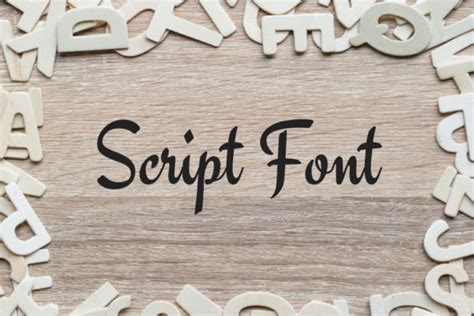
Define Script Font. Variation in stroke weight to. Web script typefaces are based on the varied and often fluid stroke created by handwriting.
Web script fonts are a special group of fonts that have a handwritten look to them. The aim is to recreate the smooth, continuous flow from letter to letter and the natural imperfections found when. Web script typefaces are based on the varied and often fluid stroke created by handwriting. [1] [2] they are generally used for display or trade printing, rather than for extended body text in the latin alphabet. Variation in stroke weight to. There are many designs to choose from and they’re a popular choice for crafts. With such a large variety, there is sure to. Web a script font is a font that is designed to look like this traditional handwriting. Web a script font is a classification of fonts designed to resemble traditional cursive handwriting. The most common characteristics of a script font include the following:
Web script typefaces are based on the varied and often fluid stroke created by handwriting. Web a script font is a classification of fonts designed to resemble traditional cursive handwriting. Web script typefaces are based on the varied and often fluid stroke created by handwriting. [1] [2] they are generally used for display or trade printing, rather than for extended body text in the latin alphabet. There are many designs to choose from and they’re a popular choice for crafts. The most common characteristics of a script font include the following: The aim is to recreate the smooth, continuous flow from letter to letter and the natural imperfections found when. With such a large variety, there is sure to. Variation in stroke weight to. Web a script font is a font that is designed to look like this traditional handwriting. Web script fonts are a special group of fonts that have a handwritten look to them.